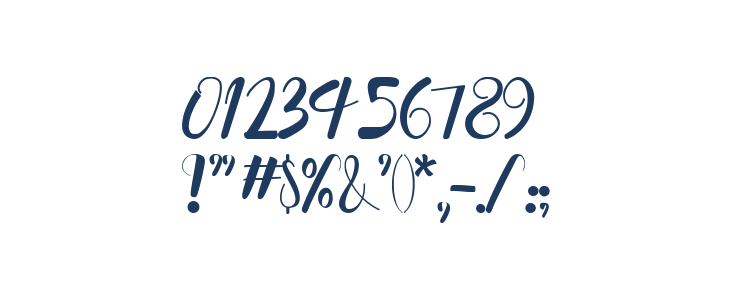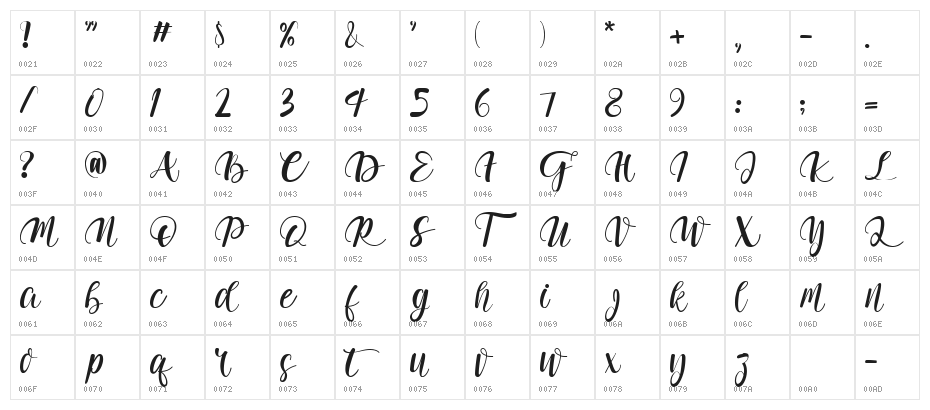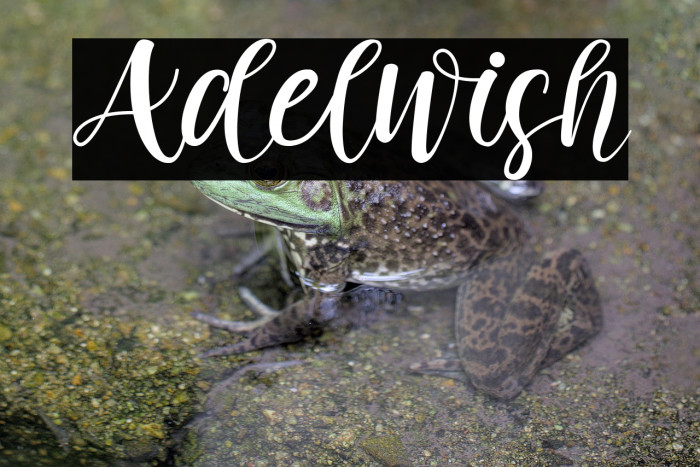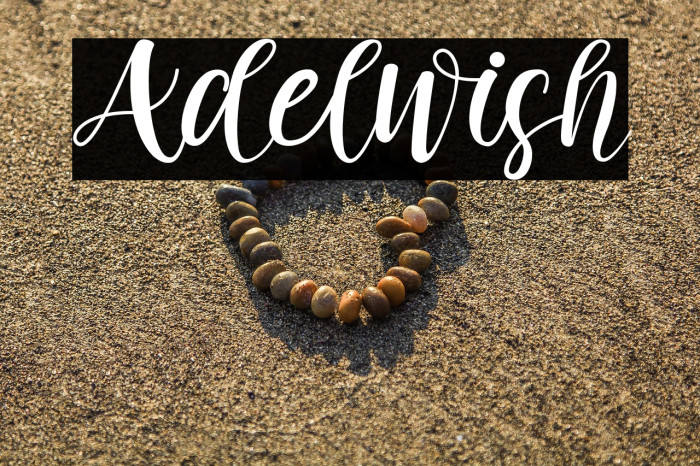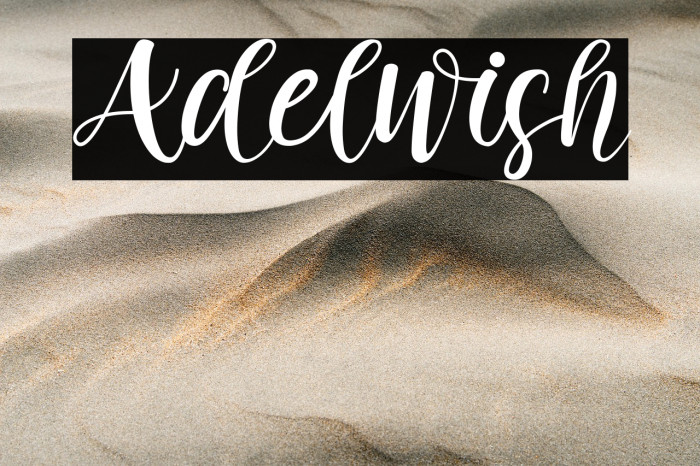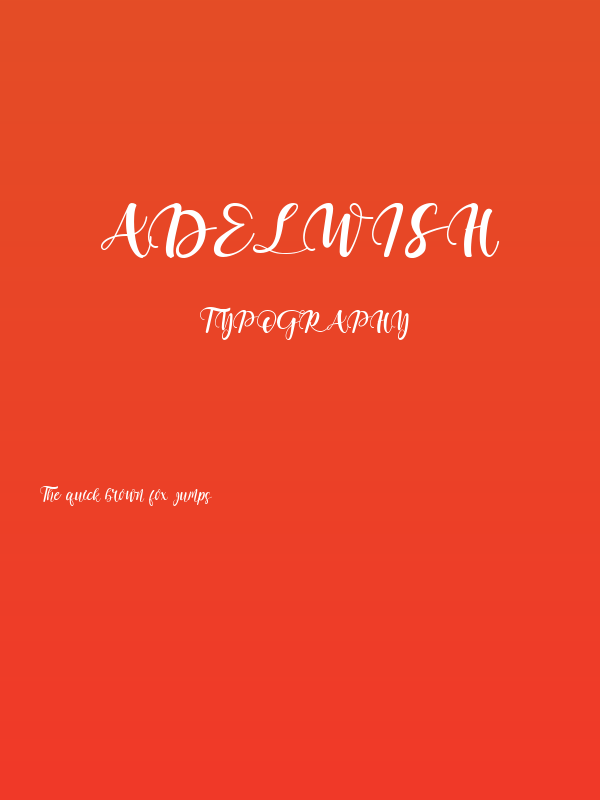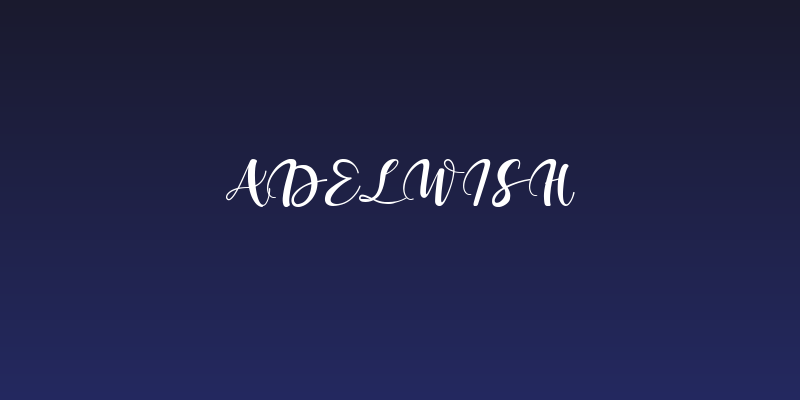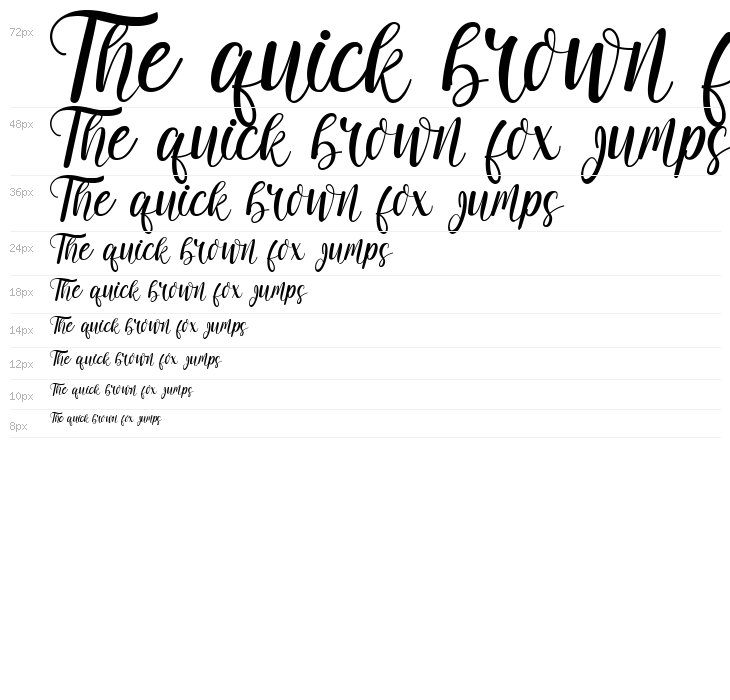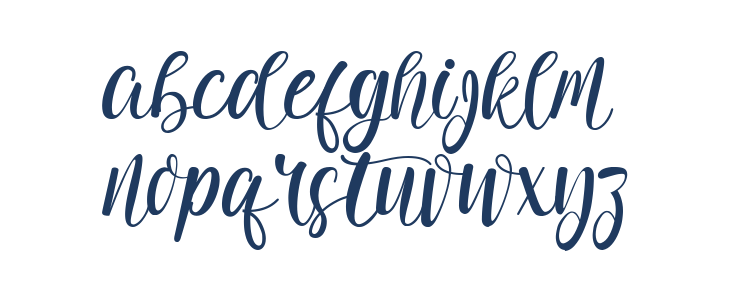
Adelwish Font
Adelwish Description
This font exudes a sense of elegance and fluidity, characterized by its cursive, handwritten style. The letters are interconnected with smooth, flowing strokes that give it a graceful appearance. The uppercase letters are particularly ornate, with flourishes that add a touch of sophistication. The lowercase letters maintain the same fluidity, ensuring consistency throughout the typeface. Numbers and special characters are designed with the same attention to detail, making them blend seamlessly with the alphabet. This font is perfect for projects that require a personal, artistic touch.
Overall StyleElegant
Use CaseLogos, Invitations, Decorative text
Proposed ProjectsIdeal for wedding invitations, greeting cards, branding, and logo design.